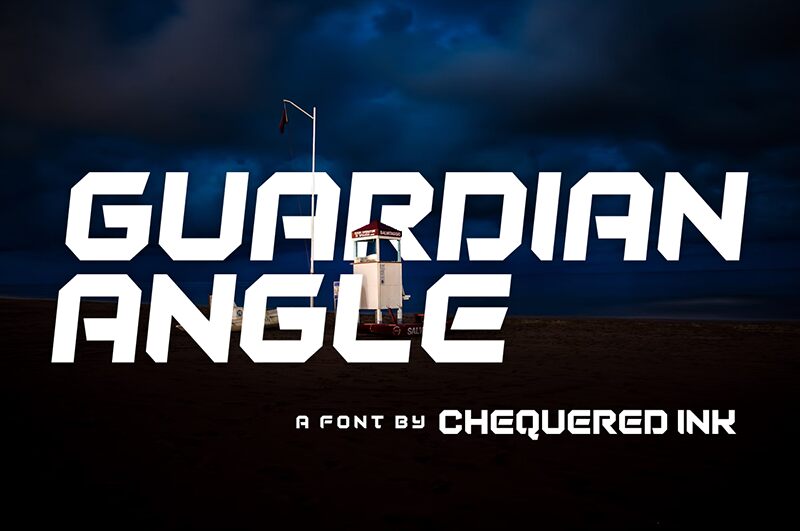
Guardian Angle Straight
Guardian Angle Straight font from Chequered Ink is an expanded techno display font whose powerful angular geometric design speaks volumes. Each character comes with cut or block edges that establish the strong conceptual appearance. A futuristic edge makes this typeface assertive, ultimately leaving a very strong visual impact on those who come across it.
Free fonts like Guardian Angle Straight are great for titles and headings where maximum audience engagement really matters. Magazine covers have them, books have them, online platforms have them, board games and posters have them too! More ideas include flyers, advertisements, apparel designs, album covers, and YouTube channel art.